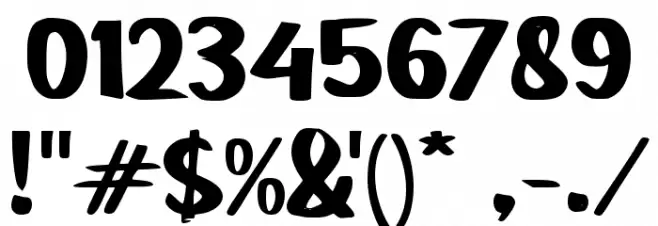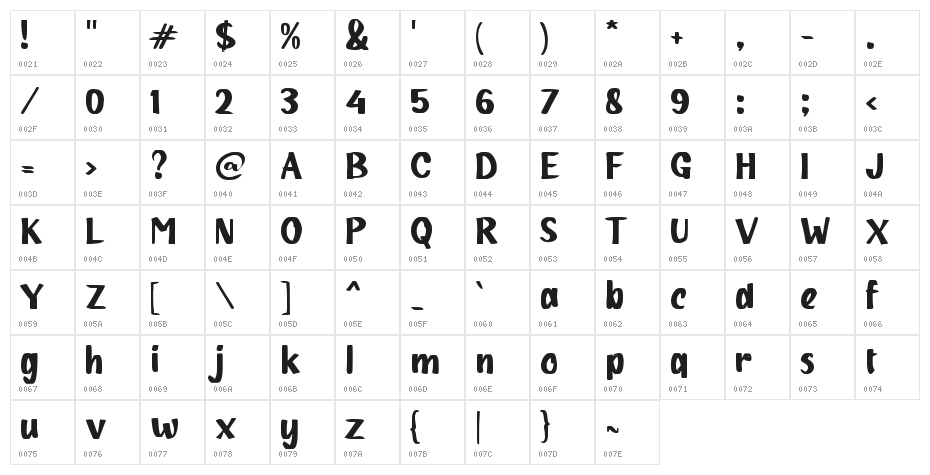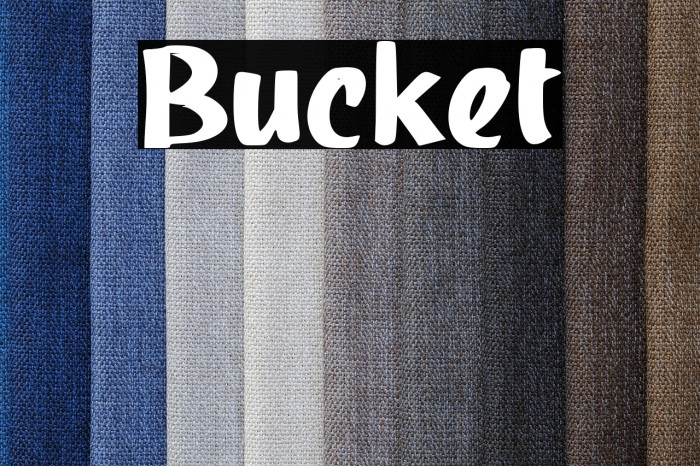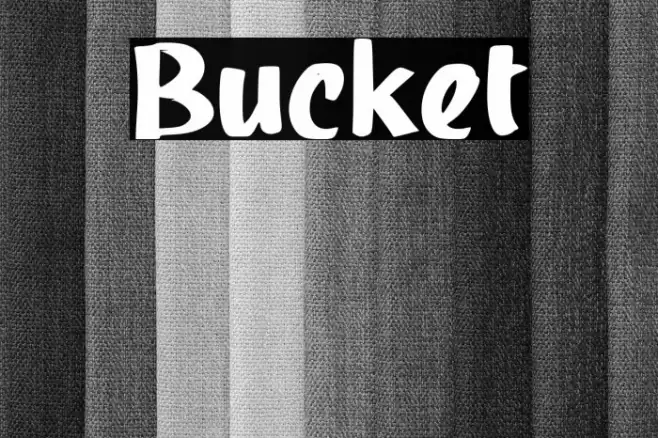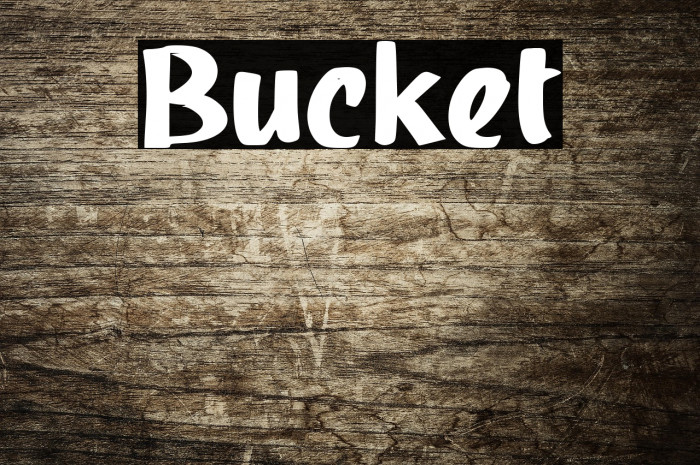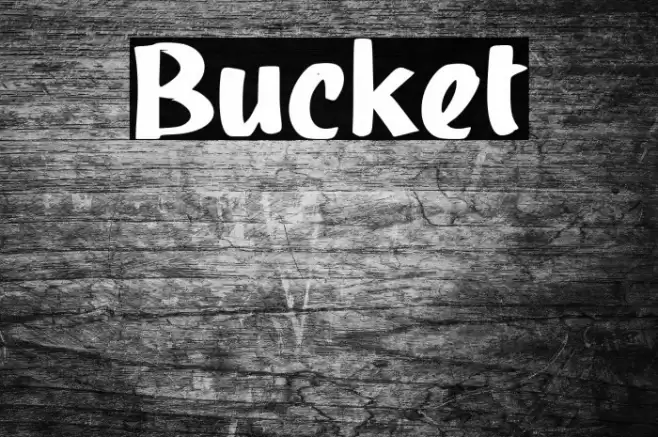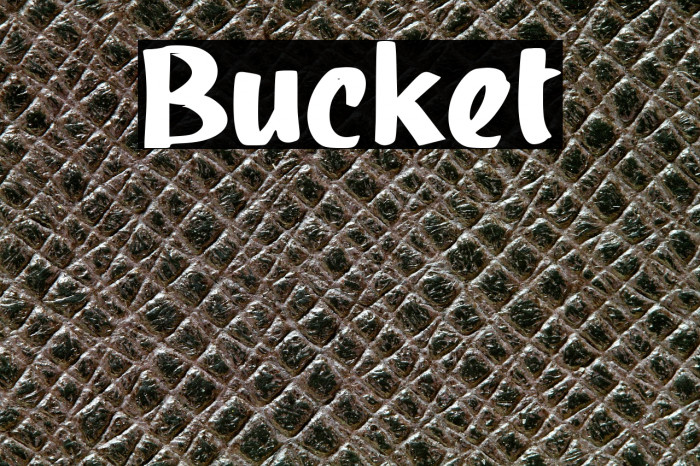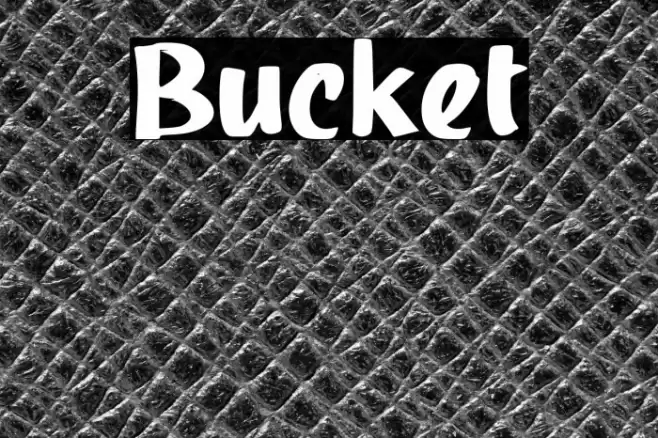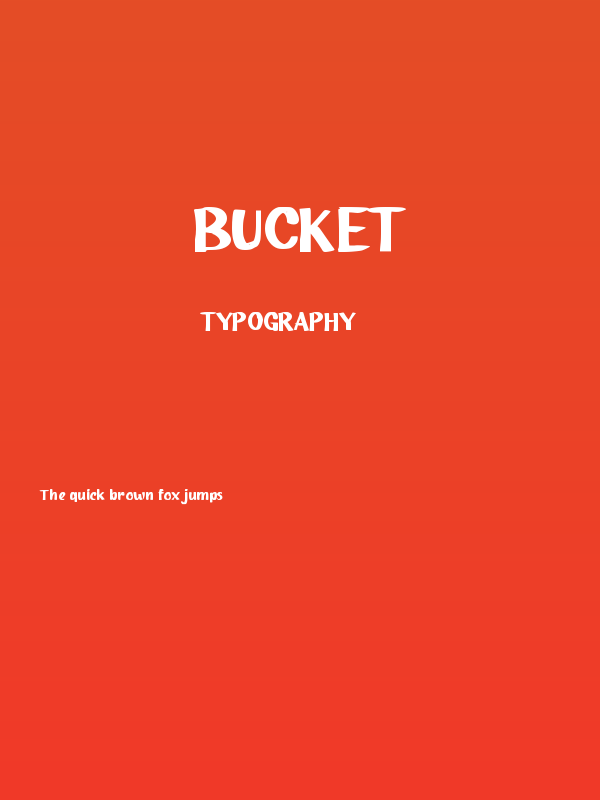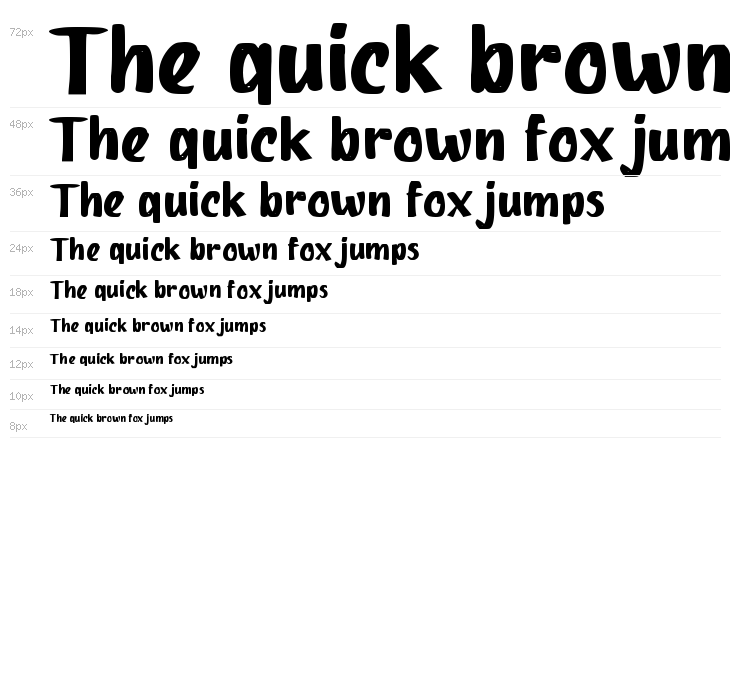
Bucket Font
Bucket Description
This font features a playful and bold style with a hand-drawn appearance. The characters are slightly irregular, adding a whimsical and informal touch. The uppercase and lowercase letters maintain a consistent weight, providing a cohesive look. The numbers and special characters follow the same playful design, making them suitable for creative projects. The overall style is casual and friendly, ideal for designs that aim to convey warmth and approachability.
| Proposed Projects | Ideal for children's books, playful branding, casual invitations, and creative posters. |